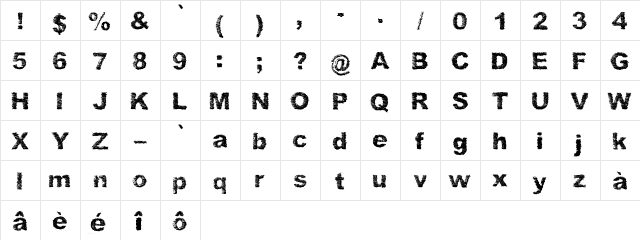
SketchMe Regular Font Preview
SketchMe Regular
SketchMe Regular Font Details
| Foundry | PYRS Fontlab Ltd. / Made with FontLab |
| Designer | Steve Cloutier |
Design Context for SketchMe Typeface
SketchMe is a composed and adaptable typeface that performs quietly and consistently across a wide range of design contexts.